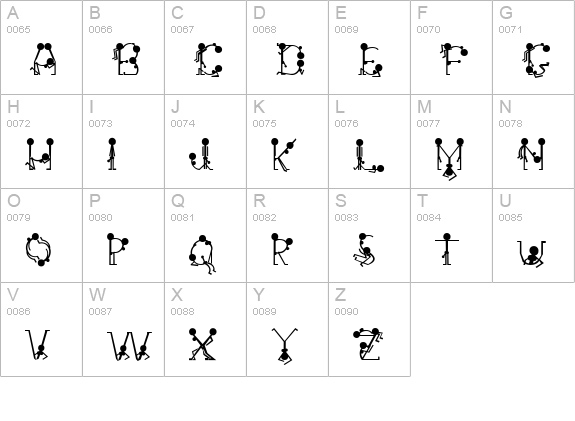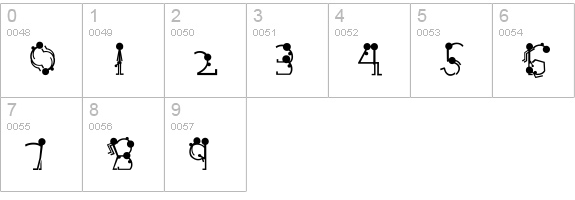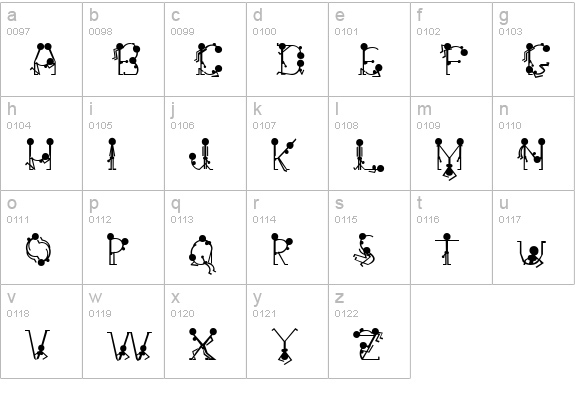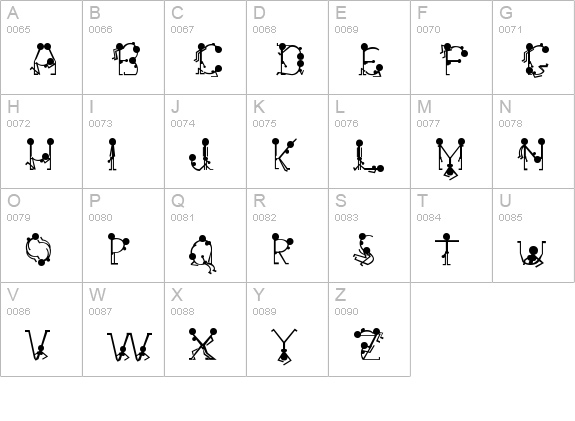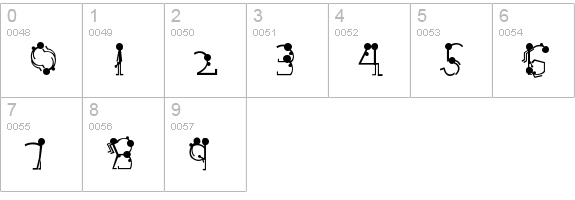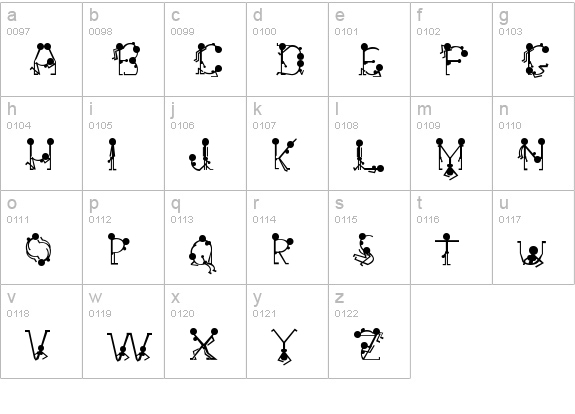
Introducing GroupSex font, a unique and versatile typeface that is sure to make a statement in any design project. This font features a modern and edgy style, perfect for adding a touch of sophistication to your creations. With its bold and eye-catching letterforms, GroupSex font is sure to grab attention and stand out from the crowd. The best part? GroupSex font is available for free download at FontsMarket.com, making it accessible to all designers and creatives looking to add a fresh and dynamic look to their work. Whether you're designing a poster, logo, or website, GroupSex font has got you covered with its bold and stylish characters. Don't miss out on the opportunity to elevate your designs with the striking GroupSex font. Download it for free today at FontsMarket.com and unleash your creativity like never before.